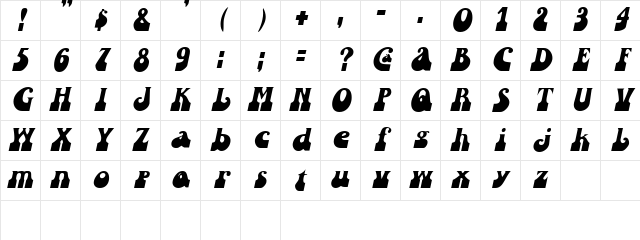
SandCastles Oblique
Style: Oblique
Design Context for SandCastles
SandCastles is a composed and adaptable typeface that performs quietly and consistently across a wide range of design contexts. The slanted form adds forward momentum and visual energy.
Pro Tip: Use SandCastles for emphasis, pull quotes, and subheadings where its slanted energy can add rhythm to the layout.